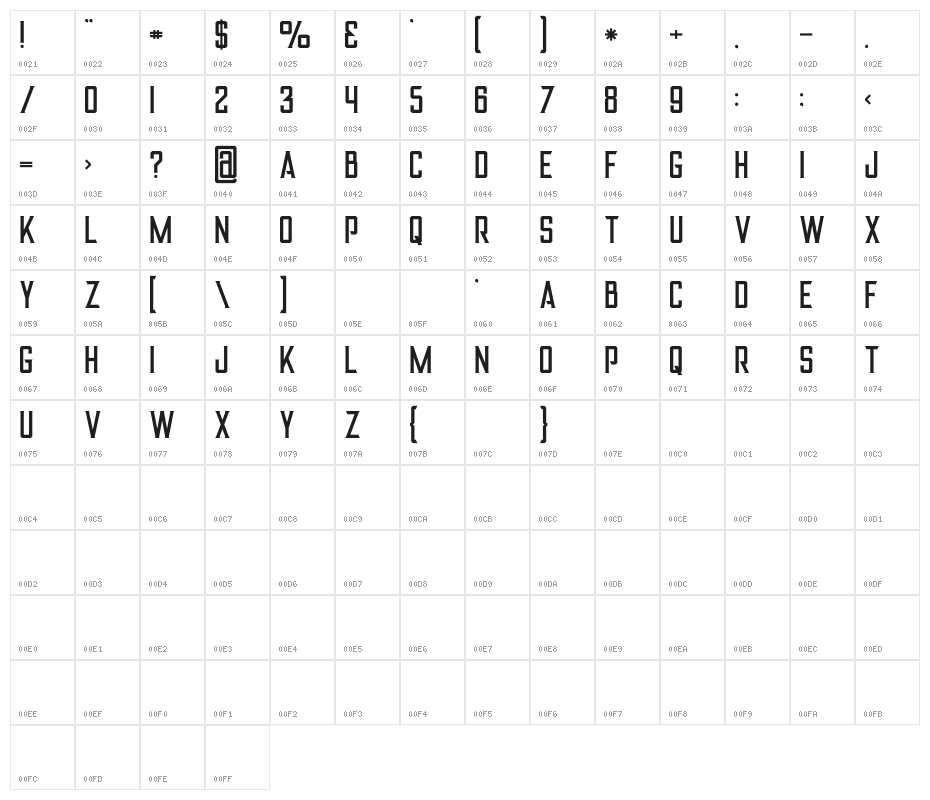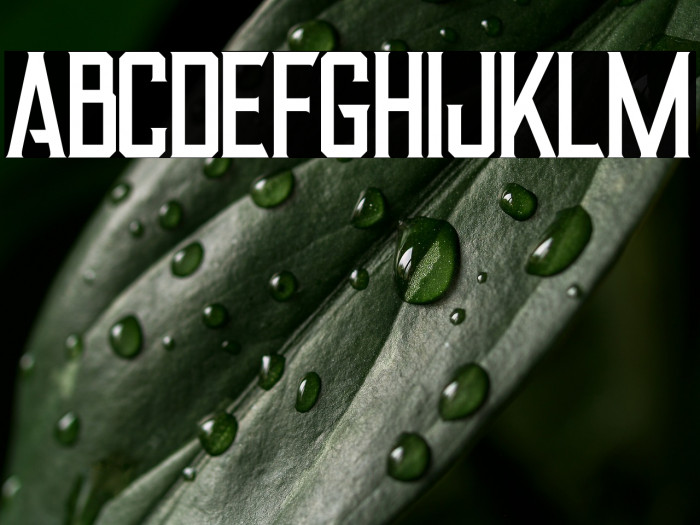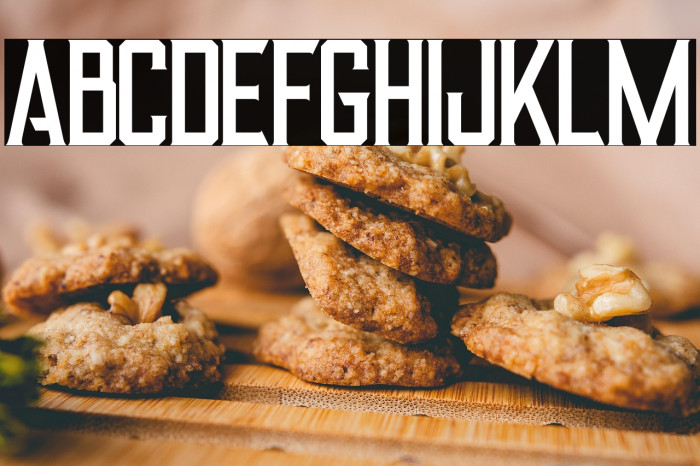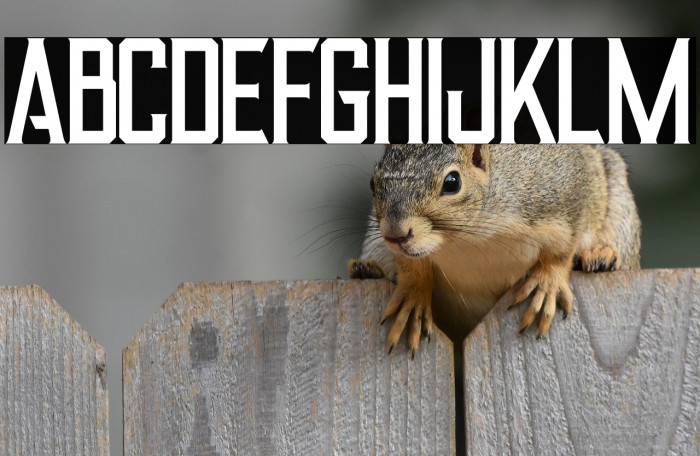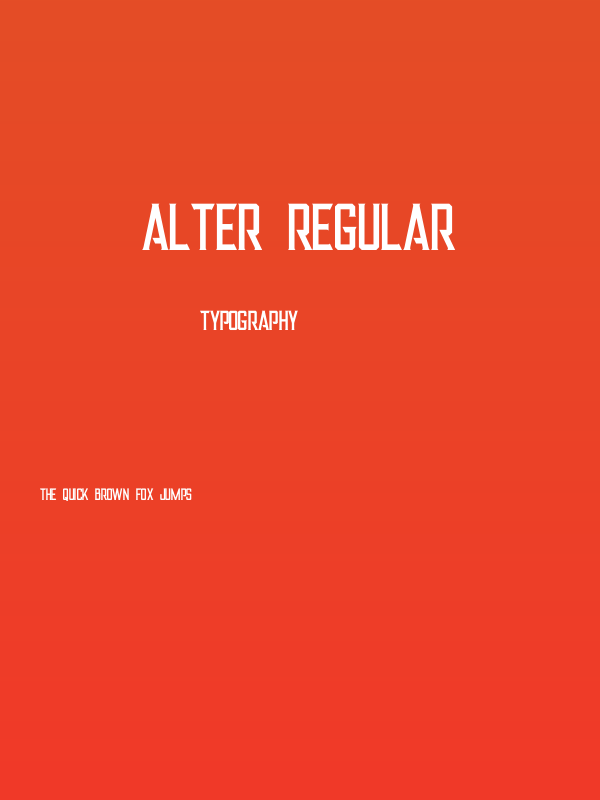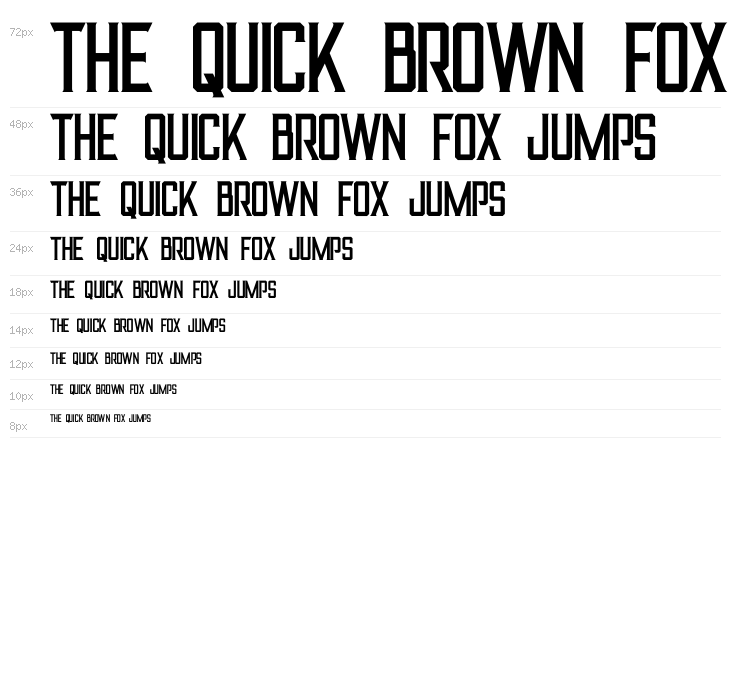
Alter Regular Font
Alter Regular Description
This font features a bold and angular design with a distinctly modern and futuristic aesthetic. The characters are sharply defined with a geometric structure, emphasizing vertical and horizontal lines. The uppercase letters are particularly striking, with a uniform height and a slightly condensed appearance, giving them a strong presence. The numerals and special characters maintain the same angular style, ensuring consistency across all glyphs. This font's unique style makes it suitable for projects that require a bold statement or a modern edge.
| Width | Condensed |
| Proposed Projects | Ideal for branding, posters, video game titles, and any project requiring a modern, bold typeface. |